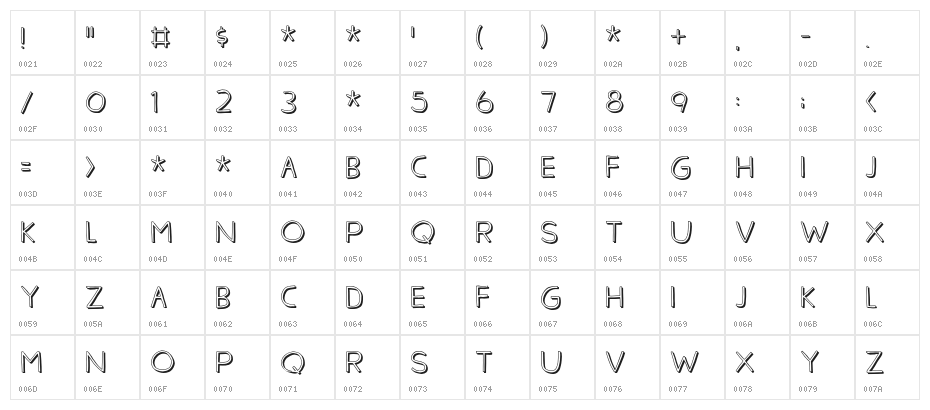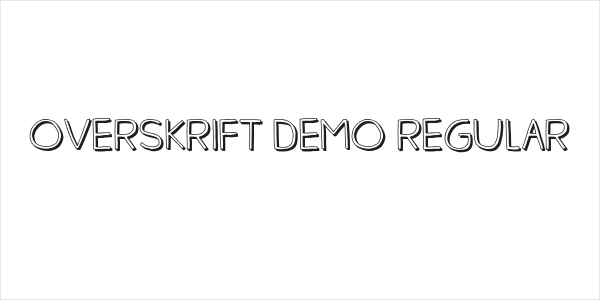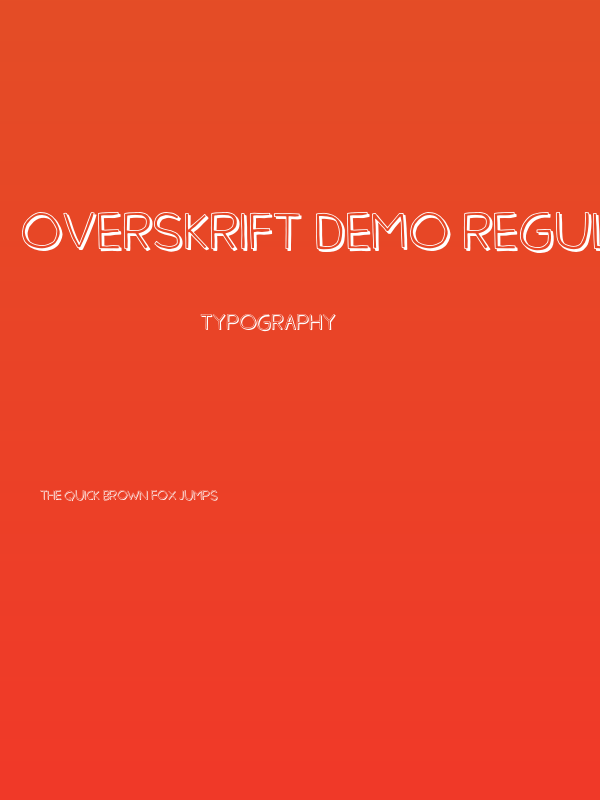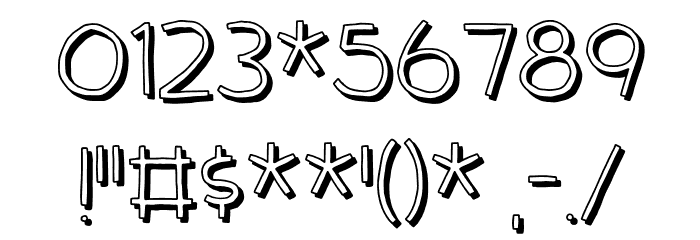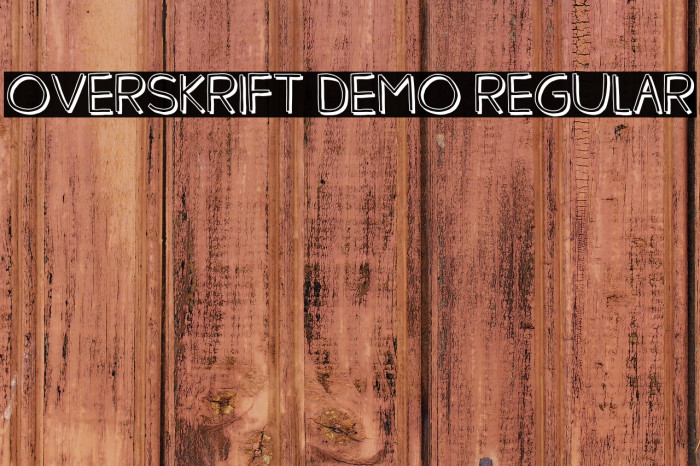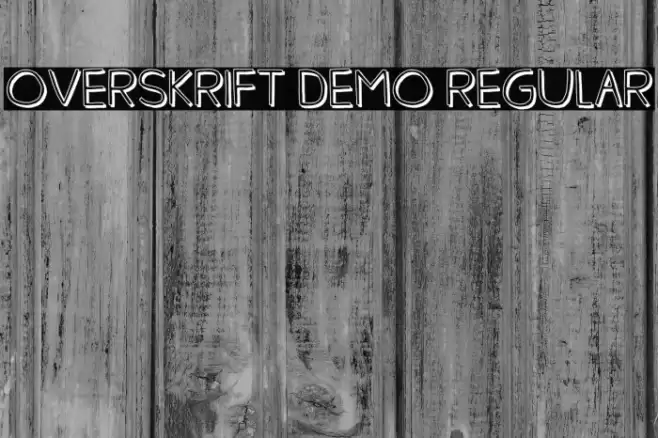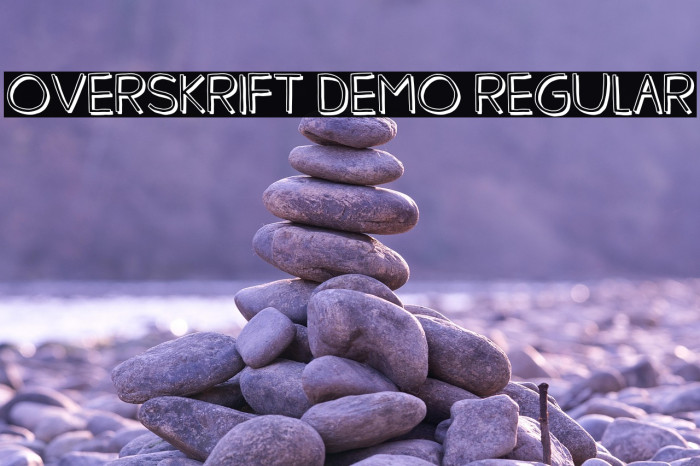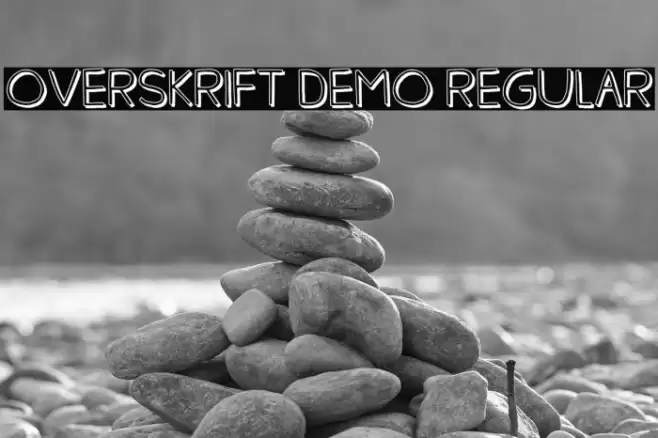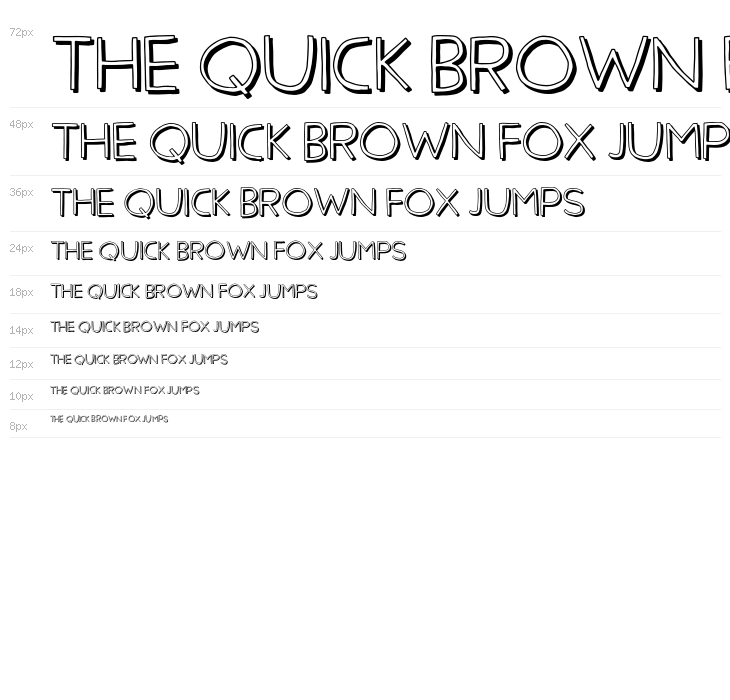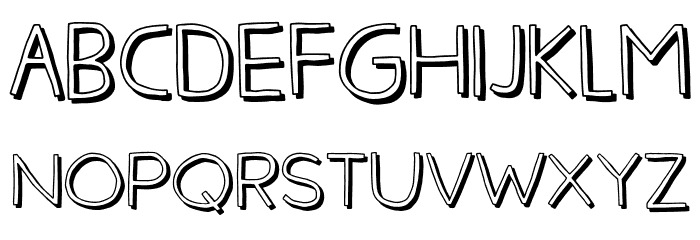
Overskrift DEMO Regular Font
Overskrift DEMO Regular Description
This font features a playful and bold design with a hand-drawn aesthetic. Each character is outlined, giving it a three-dimensional effect that stands out. The uppercase and lowercase letters are consistent in style, maintaining a uniform appearance across the board. The numbers and special characters follow the same design principles, ensuring a cohesive look. This font's unique style is both eye-catching and readable, making it suitable for various creative applications.
| Overall Style | Playful, Hand-drawn |
| Use Case | Headlines, Posters, Branding |
| Proposed Projects | Ideal for children's books, comic strips, posters, and playful branding projects. |